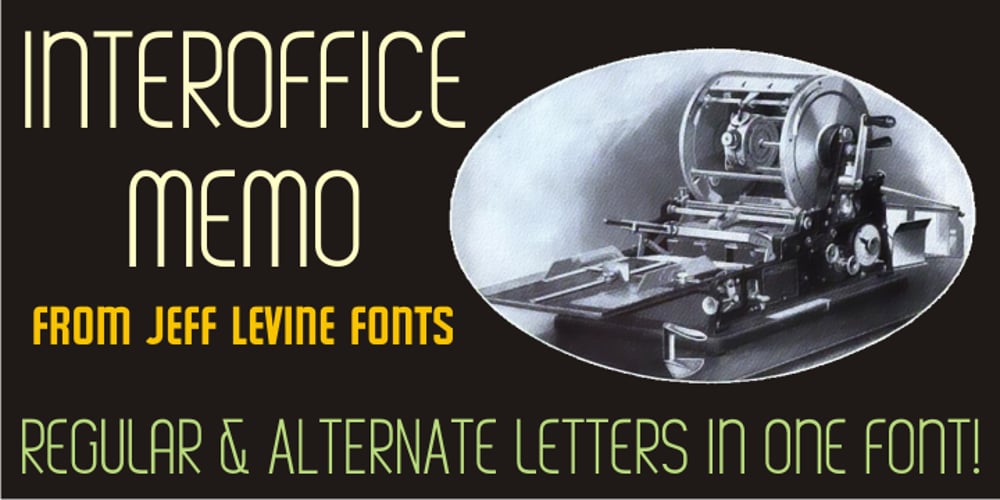
Interoffice Memo JNL Font Family was designed by Jeff Levine and published by Jeff Levine. Interoffice Memo JNL contains 1 styles and family package options. Interoffice Memo JNL was inspired by an image of a plastic lettering template used for making mimeographed fliers in the days prior to the widespread use of photocopy machines. A classic Deco-style alphabet is on the upper case, with alternate A,E,F,L,M,N and W in the lower case set.